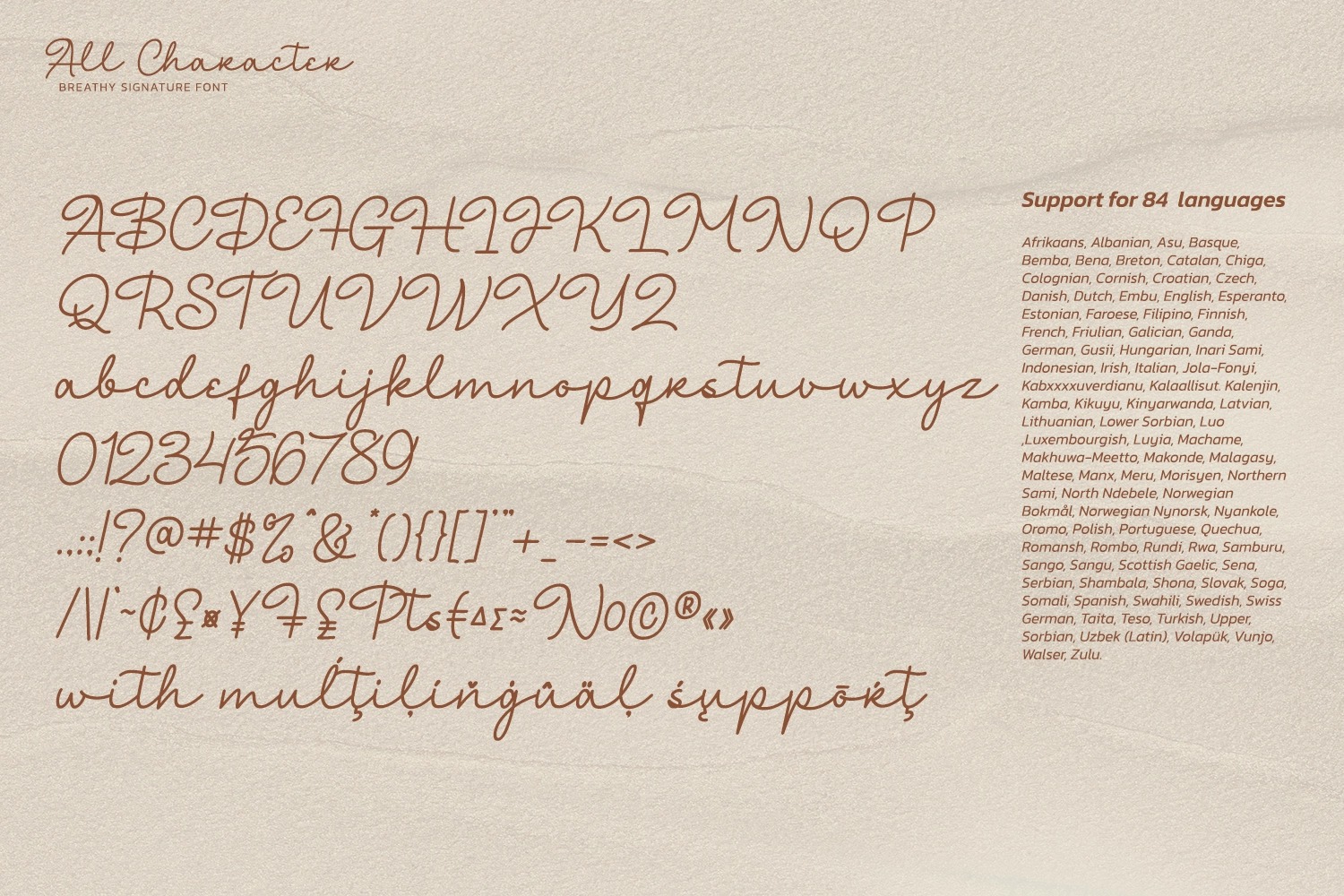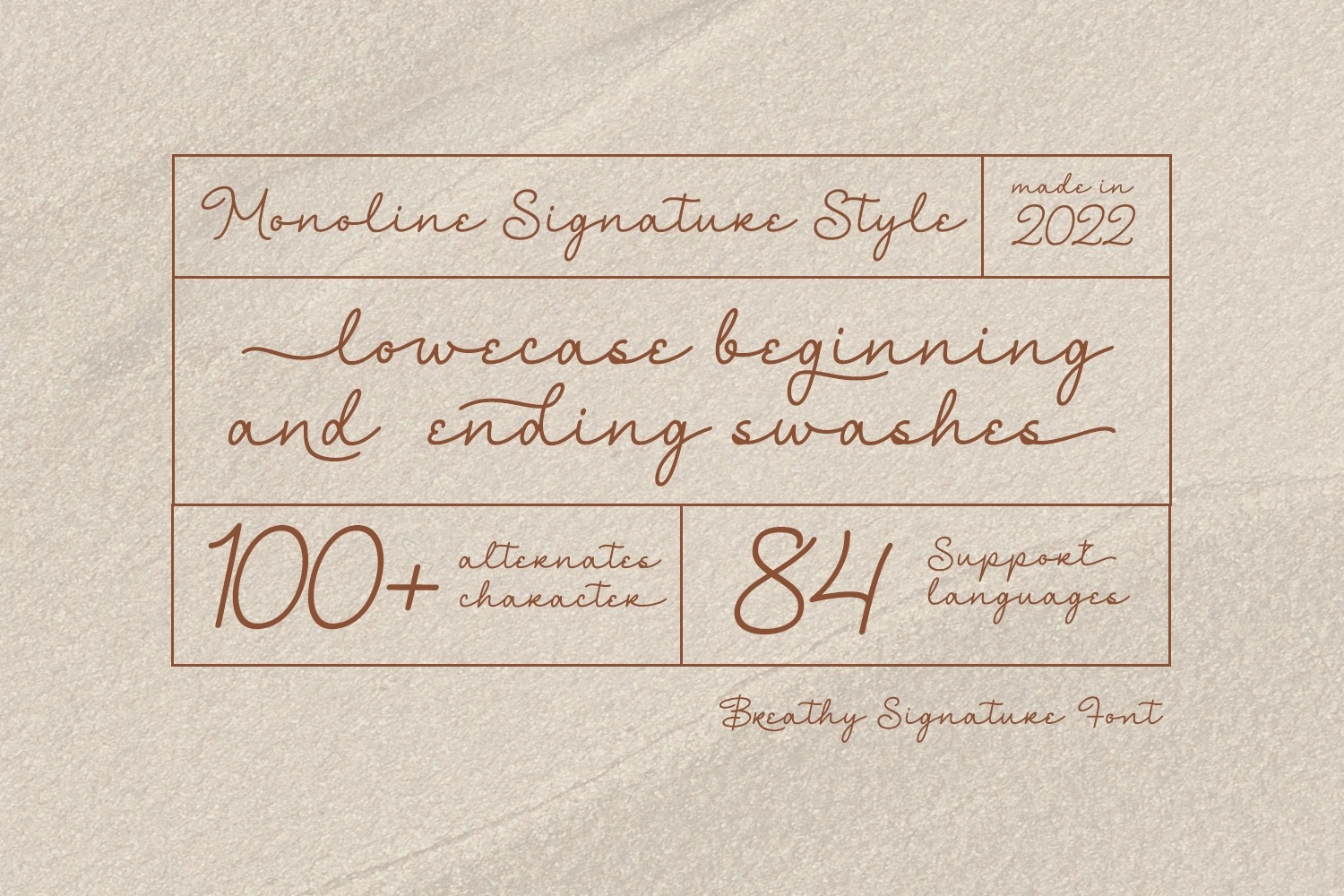
Breathy Signature Font
It is a modern casual font with a full set of easygoing letters, numerals, and punctuation. The main feature of this font is that the letters are not separated. It has beautiful inky texture on its letter form. This font generates clean, elegant and trustworthy appearance. Moreover, it is legible with various width and weight that you can explore, combine, create and help you designing something.